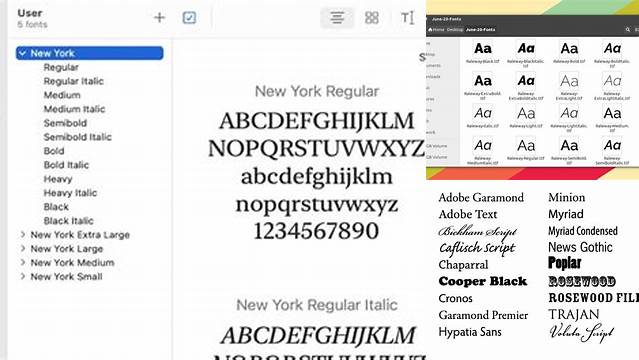
Install Fonts In Adobe Acrobat: A Quick Guide
Hey guys! Ever felt like your PDFs are looking a little…blah? You know, like they're missing that special something? Chances are, you need some fresh fonts! Downloading new fonts to Adobe Acrobat can seriously level up your document game, making your PDFs look professional, stylish, and totally you. Whether you're creating presentations, reports, or even just sprucing up your resume, the right font can make all the difference. So, let's dive into how you can get those cool new fonts into your Adobe Acrobat, shall we?
Why Bother with New Fonts in Adobe Acrobat?
Okay, so you might be thinking, "Why do I even need new fonts? The ones I have seem fine." But trust me, expanding your font library opens up a whole new world of possibilities. Think about it: fonts aren't just about making text readable; they're about conveying a mood, a style, and even a brand identity. Imagine using a playful, whimsical font for a children's book versus a serious, professional font for a legal document. See the difference?
- Professionalism: In the realm of professional documentation, selecting the appropriate font is crucial for conveying credibility and attention to detail. A well-chosen font can significantly elevate the perceived quality of reports, presentations, and official communications, ensuring they are taken seriously by the intended audience. For instance, adopting a classic serif font like Times New Roman or a clean sans-serif font such as Arial in business reports not only ensures readability but also projects an image of professionalism and formality. Conversely, employing unconventional or overly decorative fonts in such contexts may detract from the document's seriousness and impact. Therefore, understanding the subtle yet powerful role of fonts in shaping perceptions is essential for anyone aiming to make a strong, positive impression in their professional endeavors.
- Branding: Fonts are a key element of your brand identity. If you're creating documents that represent your business, using consistent fonts helps to reinforce your brand's personality and make your materials instantly recognizable. Imagine Coca-Cola using a generic font – it just wouldn't feel the same, right? The same goes for your brand. Consistent typography across all your documents, from reports to marketing materials, strengthens your brand identity and creates a cohesive visual experience. This uniformity helps customers and partners easily recognize and associate your brand, fostering a stronger brand recall and loyalty. Therefore, selecting and consistently applying specific fonts is a strategic branding decision that can significantly impact your brand's perception and recognition in the marketplace. It's about crafting a visual language that speaks volumes about your brand's values, style, and overall identity.
- Creativity: Let's talk about adding some pizzazz! New fonts allow you to express your creativity and make your documents stand out. Whether you're designing a brochure, a poster, or just a fun invitation, the right font can add that extra spark. Think of typography as a form of visual art – it can enhance the emotional impact of your message and draw the reader in. A carefully chosen font can turn a simple piece of text into a compelling visual element, elevating the overall design and grabbing attention. Experimenting with different fonts allows you to create unique visual hierarchies and emphasize key information, making your documents not only informative but also visually engaging and memorable. So, don't be afraid to explore the vast world of typography and let your creativity shine through your font choices!
- Readability: Sometimes, the default fonts just don't cut it. A fresh font can improve readability, especially if you're dealing with complex documents or large blocks of text. Choosing a font that is easy on the eyes ensures that your message is clearly conveyed and prevents reader fatigue. Factors such as letter spacing, character shapes, and overall font design play a significant role in readability. Opting for fonts specifically designed for body text, with clear distinctions between characters and adequate spacing, can make a world of difference in how your document is received. This is particularly crucial for lengthy documents, where reader engagement needs to be maintained throughout. By prioritizing readability in your font selection, you not only enhance the aesthetic appeal of your document but also ensure that your message is communicated effectively and efficiently, leaving a lasting positive impression on your audience.
Finding the Perfect Fonts: Where to Look
Alright, so you're convinced you need new fonts. Awesome! But where do you even start looking? The internet is a vast playground of typography, but it can be a little overwhelming. Here are some of my go-to spots for finding fonts that are both amazing and safe to download:
- Google Fonts: This is like the holy grail of free fonts. Google Fonts offers a huge library of open-source fonts that are free for both personal and commercial use. Plus, they're super easy to use with web projects, too. The best part? You can preview the fonts right in your browser before downloading, so you know exactly what you're getting. With a clean and intuitive interface, Google Fonts makes font selection a breeze, offering a variety of styles from classic to contemporary. Each font family comes with various weights and styles, giving you the flexibility to find the perfect match for your project. The ease of integration with web projects and desktop applications makes Google Fonts a go-to resource for designers, developers, and anyone looking to enhance their typography without breaking the bank. It's a treasure trove of quality fonts, making it an excellent starting point for expanding your font collection and exploring the art of typography.
- Adobe Fonts (formerly Typekit): If you're already an Adobe Creative Cloud subscriber, you're in luck! You have access to Adobe Fonts, which is a massive collection of high-quality fonts that you can use in your projects. It's a seamless integration, and the fonts are licensed for both desktop and web use. This means you can activate fonts directly within your Adobe applications, making the design process smoother and more efficient. The library is curated with a focus on professional typography, offering a wide range of styles from renowned foundries. The convenience of having these fonts readily available within your Creative Cloud subscription is a major advantage, eliminating the need to hunt for fonts elsewhere and ensuring licensing compliance. Adobe Fonts is a valuable resource for designers and creatives, providing a wealth of typographic options to elevate their work and bring their creative visions to life with style and sophistication.
- Font Squirrel: For some fantastic free fonts that are also commercially licensed, Font Squirrel is the place to be. They have a curated selection of fonts that are hand-picked for their quality and usability. Plus, they offer a handy Font Identifier tool that helps you identify fonts you see in images! This is a particularly useful feature for designers and creatives who often encounter inspiring typography in the wild and want to replicate the style in their own projects. Font Squirrel's commitment to providing high-quality, free-for-commercial-use fonts makes it a valuable resource for both personal and professional projects. The site is well-organized, making it easy to browse through categories and find the perfect font for your needs. With a focus on quality and usability, Font Squirrel has established itself as a trusted source for designers and typographers seeking excellent free font options.
- DaFont: This site is a mixed bag, but it's a great resource for finding unique and quirky fonts. Just be sure to check the license before using a font for commercial purposes, as some are only free for personal use. DaFont's vast collection of fonts caters to a wide range of styles and preferences, making it a go-to destination for designers and creatives seeking unconventional and artistic typefaces. The site's categorization and search functionality make it easy to explore different font styles, from script and handwritten to decorative and futuristic. While the licensing terms vary among fonts, the site provides clear information to help users understand the usage rights. This allows designers to make informed decisions about incorporating fonts into their projects, ensuring compliance with the terms of use. DaFont's extensive library and diverse font styles make it an invaluable resource for those looking to add a unique touch to their designs.
Step-by-Step: Downloading and Installing Fonts
Okay, you've found some fonts you love. Now what? Here's the nitty-gritty on how to download and install them so you can use them in Adobe Acrobat:
- Download the Font Files: Once you've found a font you like, download the font files from the website. They usually come in a ZIP file. Make sure the site you're downloading from is reputable to avoid any sketchy files!
- Extract the ZIP File: Locate the downloaded ZIP file and extract its contents. Inside, you should find font files in formats like
.OTF
(OpenType Font) or.TTF
(TrueType Font). These are the files you need. - Install the Font on Your System:
- Windows: Right-click on the
.OTF
or.TTF
file and select "Install." Windows will automatically install the font for you. - macOS: Double-click the
.OTF
or.TTF
file. This will open Font Book. Click "Install Font" at the bottom of the window.
- Windows: Right-click on the
- Restart Adobe Acrobat: This is crucial! To make sure Adobe Acrobat recognizes the new font, you need to close and reopen the application. Sometimes, you might even need to restart your computer for the font to show up.
Using Your New Fonts in Adobe Acrobat
Alright, you've got your freshly installed fonts. Let's put them to use! Here's how to access them in Adobe Acrobat:
- Open Your PDF: Fire up Adobe Acrobat and open the PDF document you want to work with.
- Edit the PDF: Go to the "Edit PDF" tool. This will allow you to modify the text in your document.
- Select the Text: Click on the text you want to change.
- Choose Your Font: In the formatting panel on the right, you'll see a font dropdown menu. Click it, and you should see your newly installed fonts in the list. If you don't see them, double-check that you've restarted Acrobat.
- Apply the Font: Select your new font, and voilà ! Your text is now sporting a brand-new look. You can also adjust the font size, color, and other formatting options to get it just right.
Troubleshooting: What If the Font Doesn't Show Up?
Uh oh, sometimes things don't go as planned. If your new font isn't showing up in Adobe Acrobat, don't panic! Here are a few things you can try:
- Restart Acrobat (Again): Seriously, sometimes it just takes another restart. Close Acrobat completely and reopen it.
- Restart Your Computer: If a simple restart of Acrobat doesn't do the trick, try restarting your entire computer. This can help refresh the system and make sure the font is properly loaded.
- Check the Font Installation: Go back to your system's font management (Font Book on macOS, the Fonts folder in Windows) and make sure the font is actually installed. If it's not there, reinstall it.
- Clear Font Cache: Sometimes, your system's font cache can get a little wonky. Clearing it can help. The process for clearing font cache varies depending on your operating system, so a quick Google search for "clear font cache [your operating system]" should guide you.
- Check Font Compatibility: Not all fonts play nicely with all applications. While rare, it's possible that the font you installed isn't fully compatible with Adobe Acrobat. Try using the font in another application (like Microsoft Word) to see if it works there. If it doesn't, the font itself might be the issue.
Final Thoughts: Unleash Your Inner Typographer!
So there you have it! Downloading and installing new fonts in Adobe Acrobat is a breeze once you get the hang of it. With a little effort, you can transform your PDFs from drab to fab, making them more professional, engaging, and visually appealing. Don't be afraid to experiment with different fonts and find the ones that truly speak to you and your brand. Happy designing!